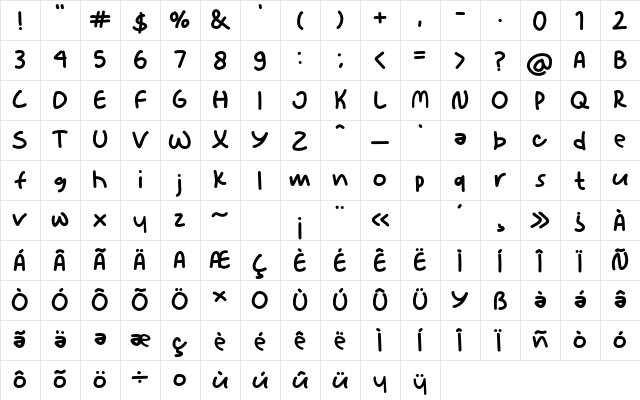
Kidswork Regular Free Font
Kidswork Regular
Design Context for Kidswork
Kidswork has an approachable, lighthearted character - its loose, expressive forms are well-suited to children's content, casual branding, and fun-first design.
Font Pairing: Pairs well with a rounded or humanist sans for body copy, maintaining the friendly tone without relying on Kidswork to carry extended reading.
Pro Tip: Use Kidswork at larger display sizes where its expressive character can land. Pair with a clean, simple sans for body copy to maintain readability.